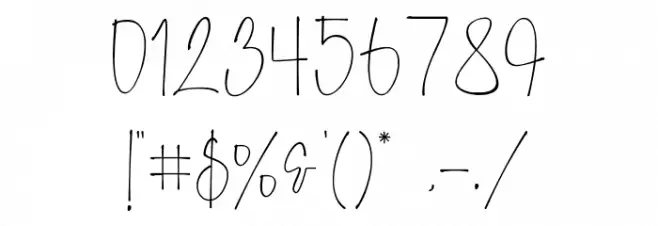
Cristy Font
Cristy Description
This font exudes a casual, handwritten charm with its flowing, cursive style. The letters are characterized by their loose, freeform strokes, giving an impression of spontaneity and creativity. The uppercase letters are tall and elegant, while the lowercase letters maintain a consistent, playful rhythm. Numbers and special characters follow the same whimsical style, making the font versatile for various applications. The overall appearance is both artistic and approachable, ideal for projects that require a personal touch.
A casual, handwritten font with a flowing, cursive style from Uncategorized fonts.
- Proposed Projects: Ideal for greeting cards, invitations, personal branding, and creative projects that require a personal, artistic touch.
- Use Case: Logos, Invitations, Personal Branding